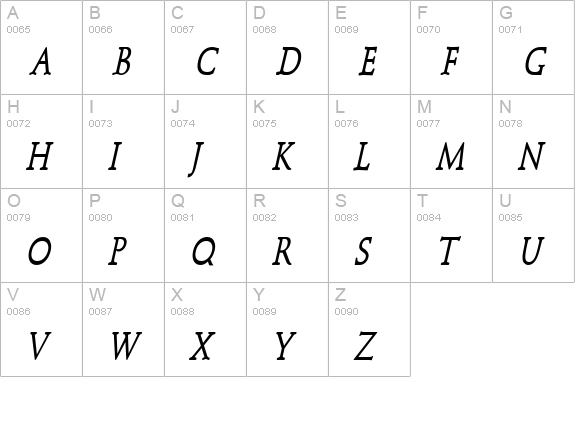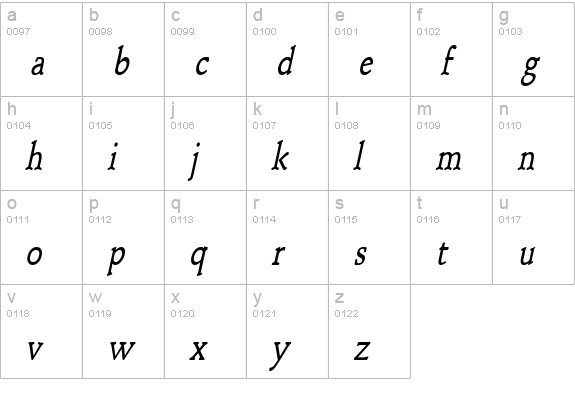
Schroeder Condensed Bold Italic is a strong, high-contrast, condensed-width, italic variant in the Schroeder typeface family \xE2\x80\x94 well suited to headlines, attention-grabbing titles, and strong calls-to-action.
Schroeder Condensed Bold Italic font is a stunning and versatile typeface that exudes a sense of sophistication and elegance. With its bold and italic design, this font adds a touch of flair and style to any project or design. Designed with precision and attention to detail, Schroeder Condensed Bold Italic font is perfect for creating eye-catching headlines, logos, posters, and other graphic materials. Its condensed nature allows for maximum impact in limited spaces, making it ideal for projects that require a strong visual presence. This font is not only visually striking but also highly readable, ensuring that your message is conveyed with clarity and professionalism. The bold and italic variations add emphasis and emphasis to your text, making it stand out and grab the viewer's attention. What sets Schroeder Condensed Bold Italic font apart is that it is freely available to download at FontsMarket.com. This means that you can use this font for personal or commercial projects without any restrictions or limitations. Whether you're a professional designer, a student working on a school project, or an enthusiast looking to enhance your creations, this font is accessible to all. So why wait? Take advantage of this incredible offer and download Schroeder Condensed Bold Italic font today from FontsMarket.com. Transform your designs with this elegant and striking typeface and make a lasting impression on your audience.